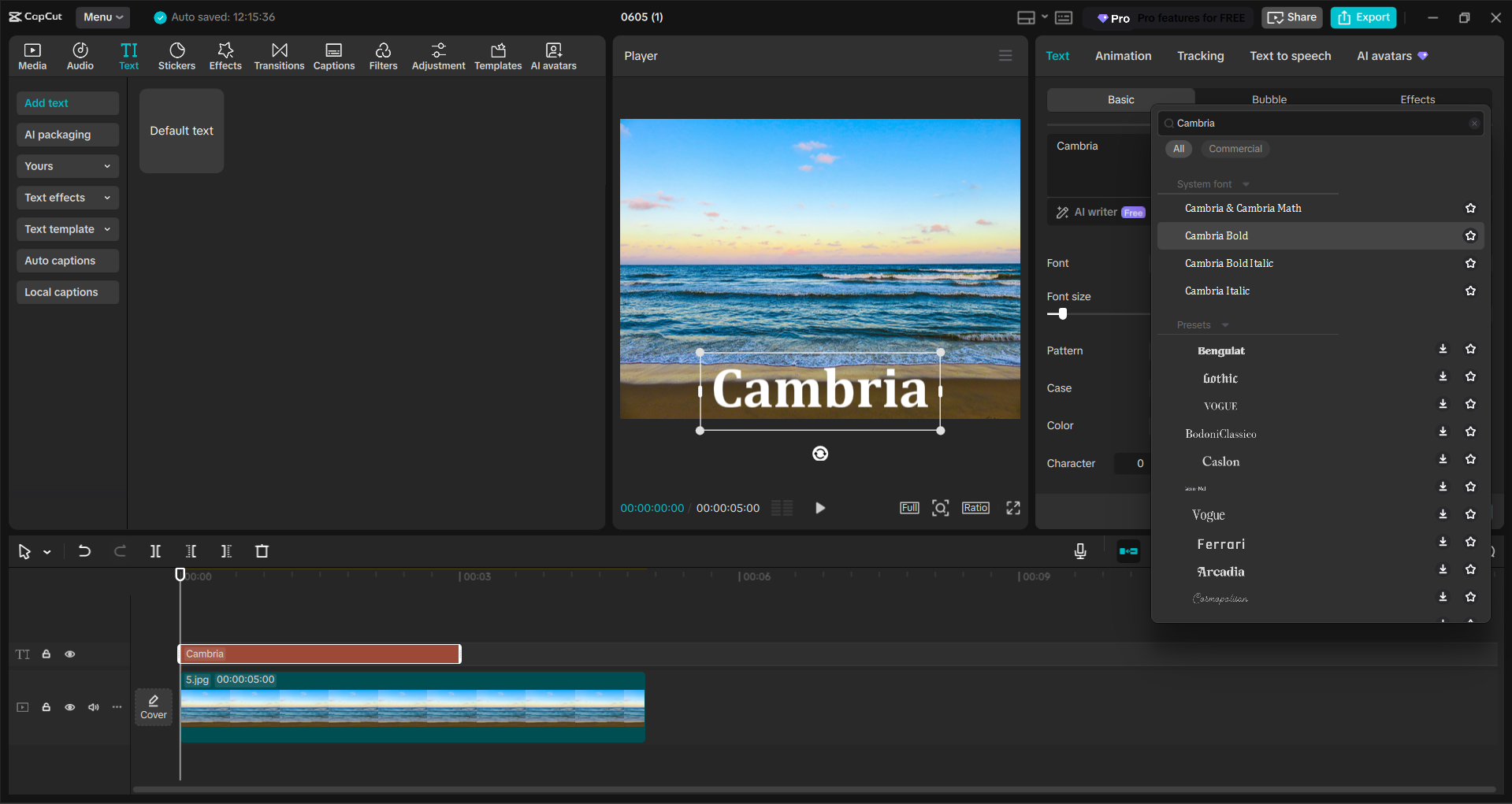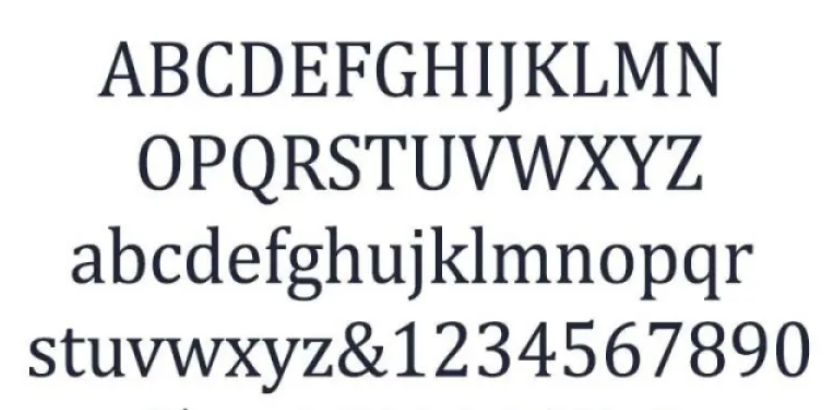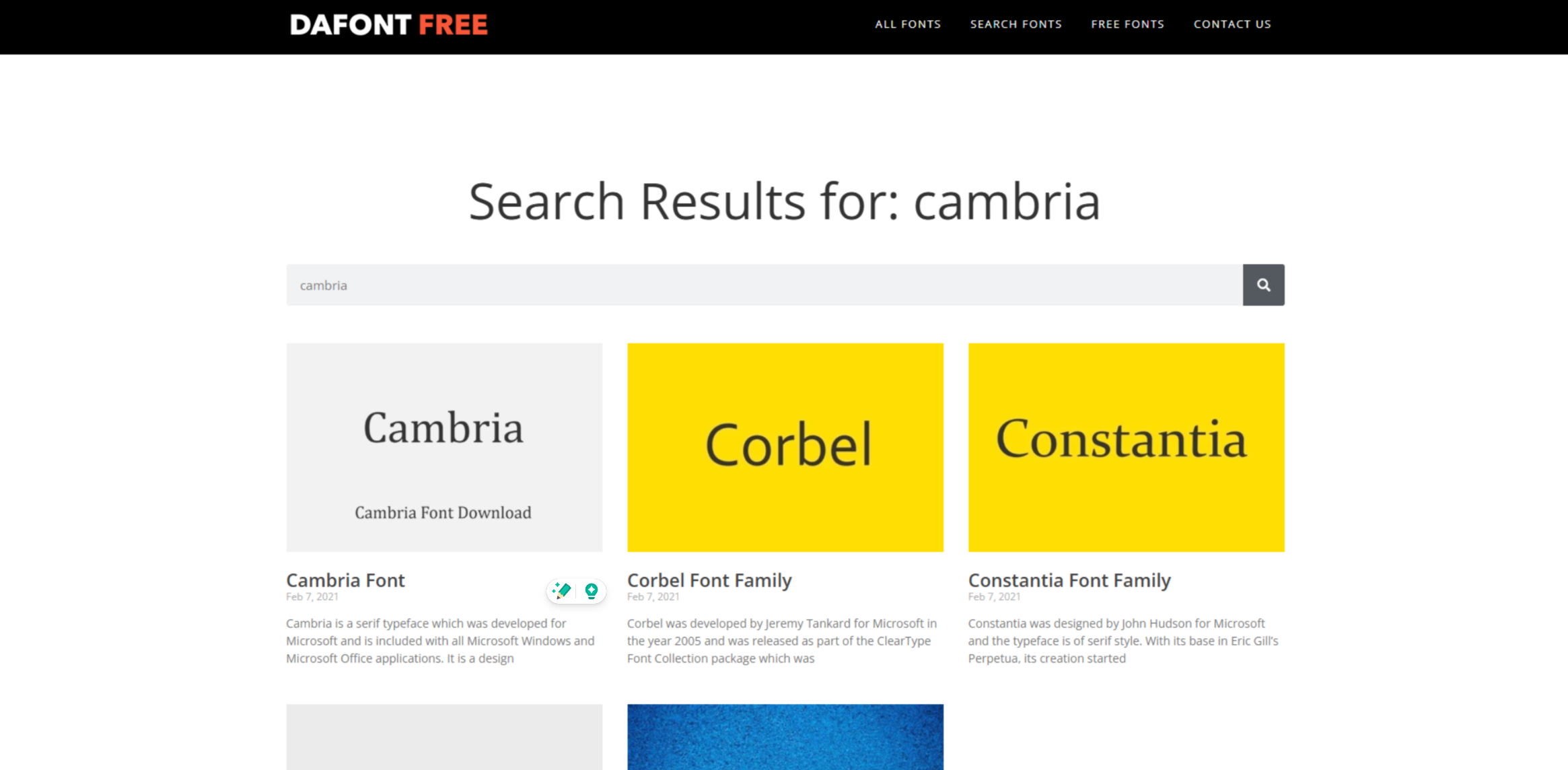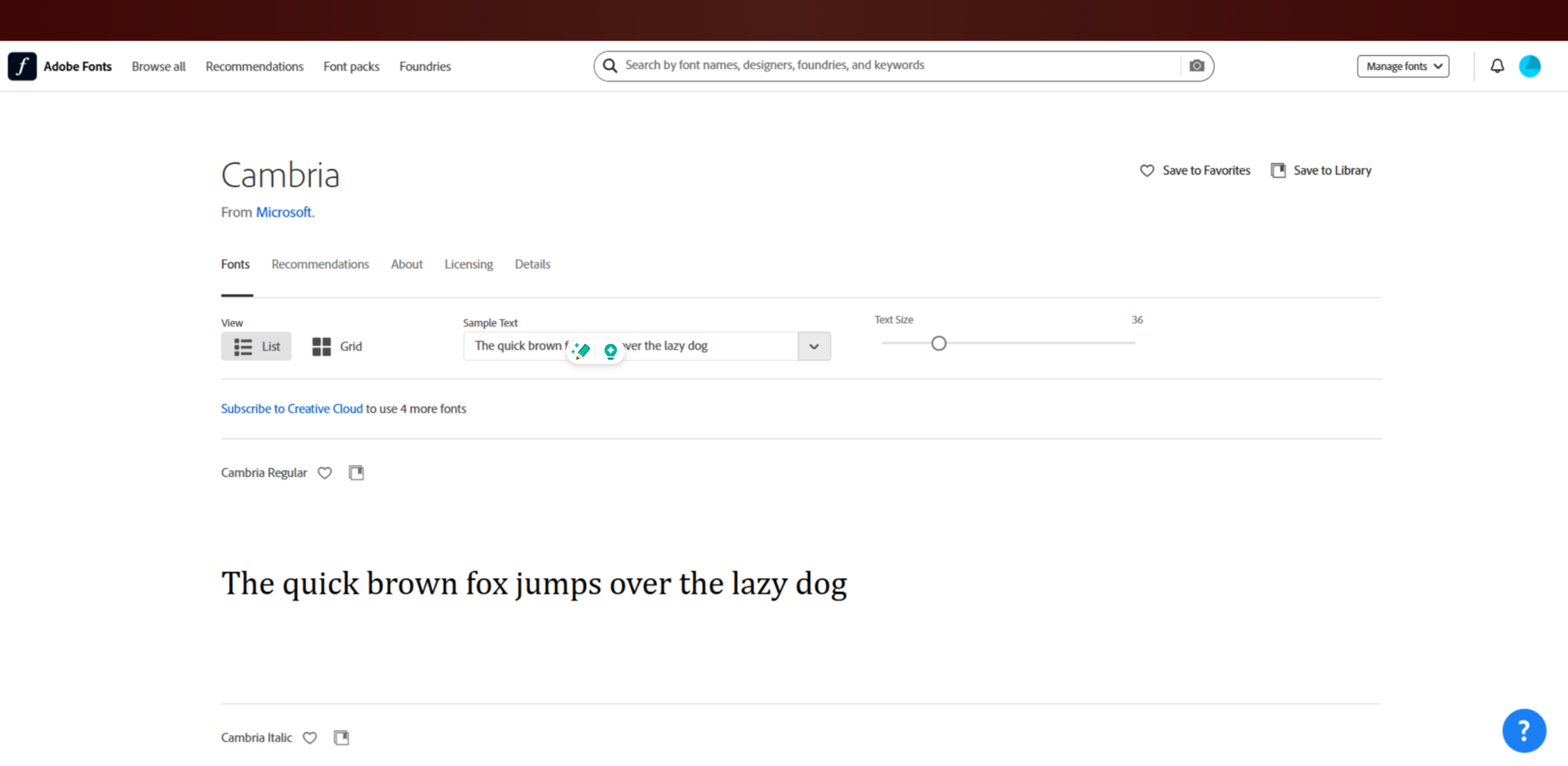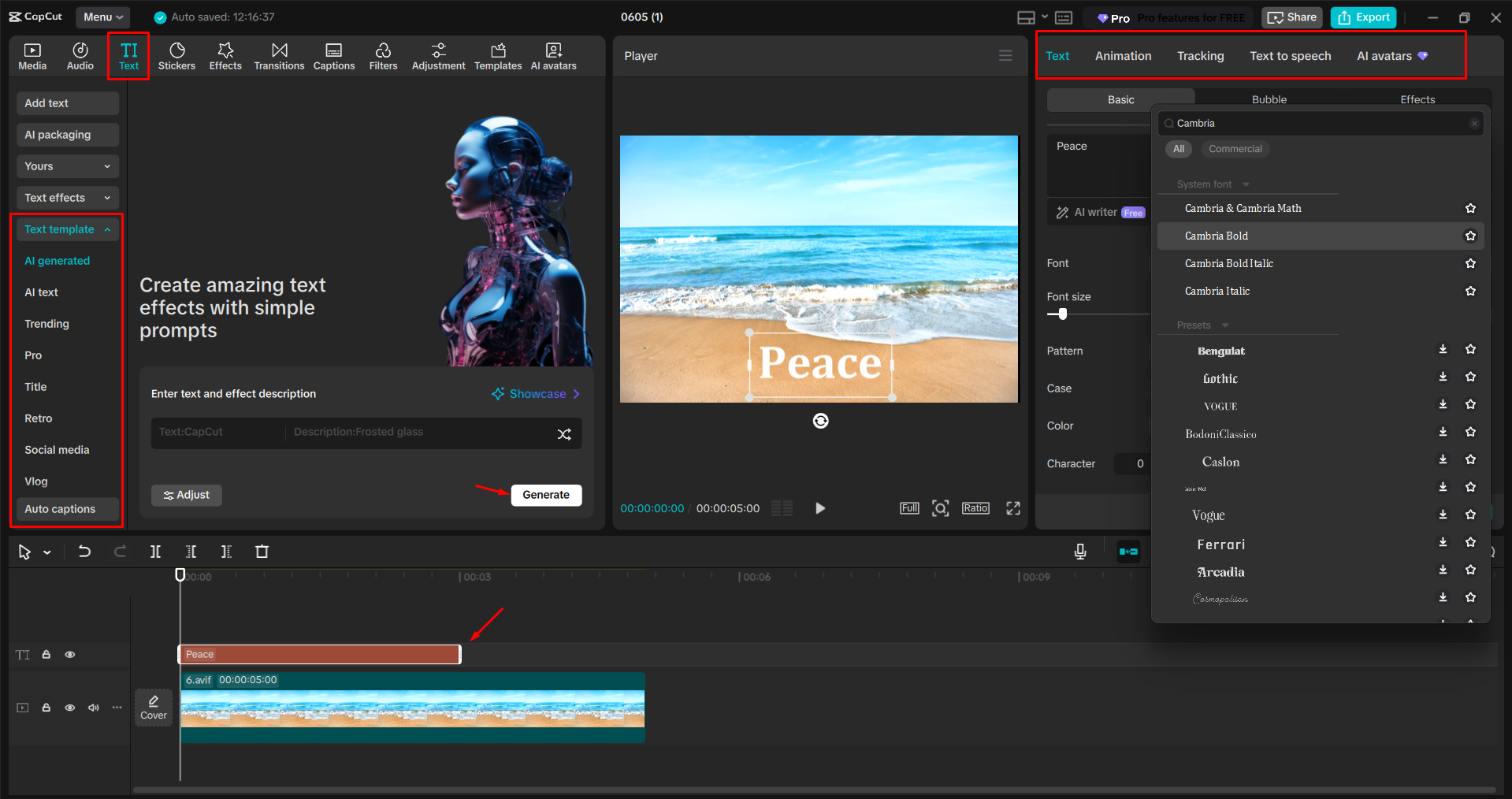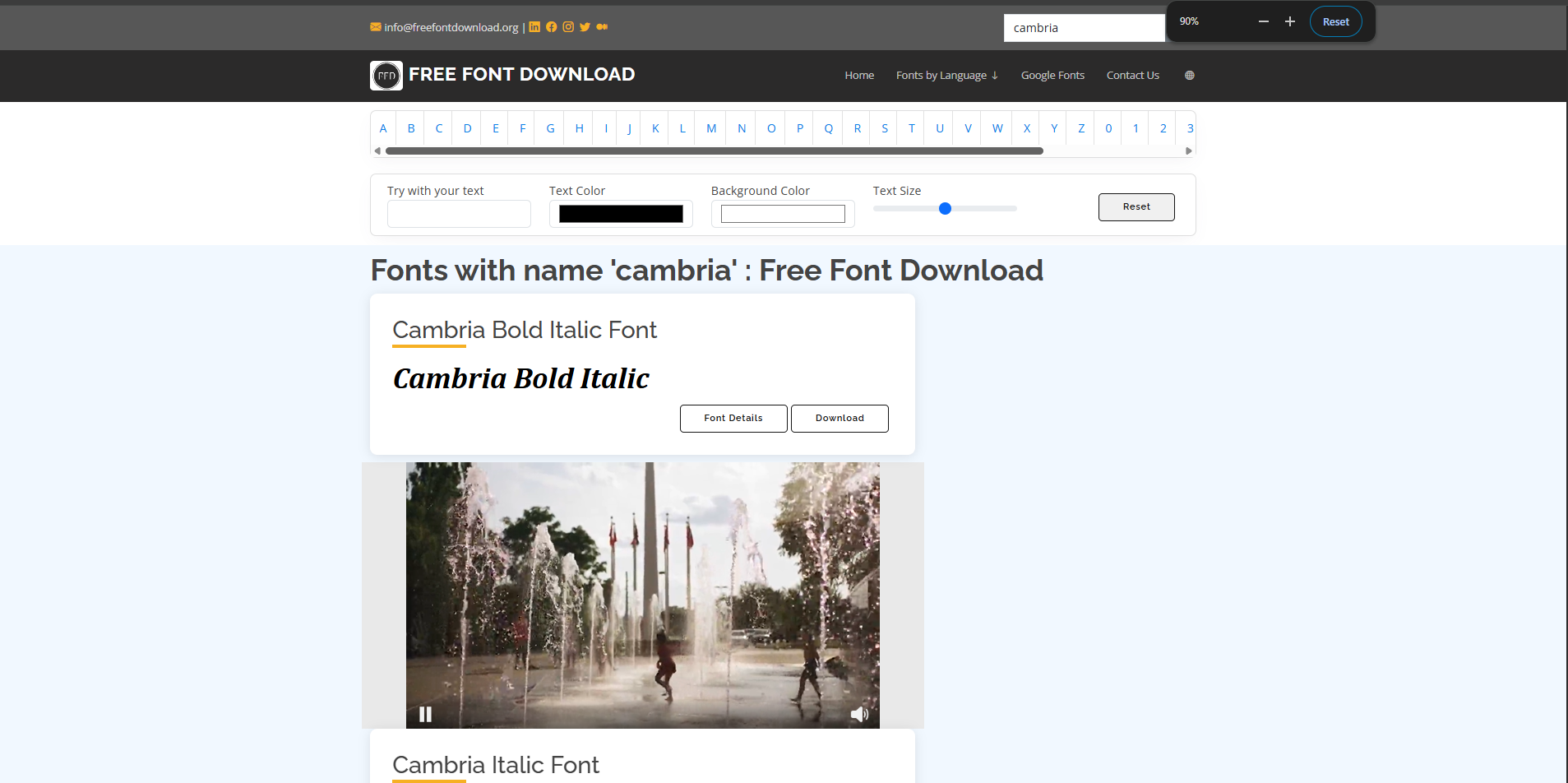
Whether it be drafting a report, sending an email, or completing a school assignment, the aesthetics of your text can play a crucial role. Selecting an appropriate font enhances readability, making the document appear polished. A lot of people love using Cambria font because it's modern and stylish while still being readable.
What is the free Cambria font style
A bold Cambria font refers to font variations that are accessible for zero cost through some software or free font websites. The Cambria font is a proprietary, licensed typeface created by Microsoft, which usually comes pre-installed with Microsoft Office suites, but in case users don't have access to the licensed version, there are alternative or similar styled fonts available.
Creative ideas to customize the regular Cambria font
After you download the Cambria font, there are many creative ideas to make the regular font look unique and interesting. These simple changes can help your text stand out while keeping its clear and professional style. Here are some easy ways to customize the Cambria font and make your writing more eye-catching:
• Adjust spacing
The space between letters or lines is really important in putting your ideas on paper, and altering them can make quite a difference. Wider space lets words feel lighter and much easier to read, and at the same time, less space can make a text look bold and tighter.
• Add shadows
When you add shadows to your text, you create depth and a three-dimensional look to your design. This is effective for titles or key points as it emphasizes important words by forcing them off the page and increasing visual impact instantly.
• Use bold
Applying the free Cambria font can emphasize and segregate essential parts of your text. Gradients enhance your text and grab attention, thus making navigation through your text easier. When downloading a font, remember to use bold sparingly to maintain a clean and well-structured document.
• Outline text
The ornamented version of the Cambria font does gain attention as it outlines text and, hence, gives a pop appearance. This technique can certainly be employed and appears novel either for headlines or any other area where creativity is a priority over typeface adherence.
• Layer graphics
Combining the Cambria font with simple shapes or images can create unique designs that catch the eye. Layering text over graphics or using text as part of a picture adds creativity and style to your work. After you download the Cambria font for free, use layering to mix text and visuals for a modern design.